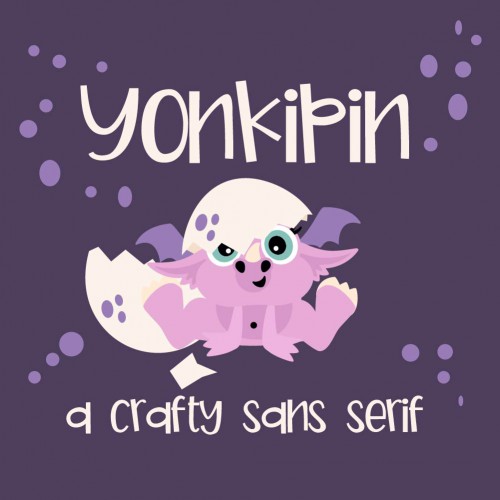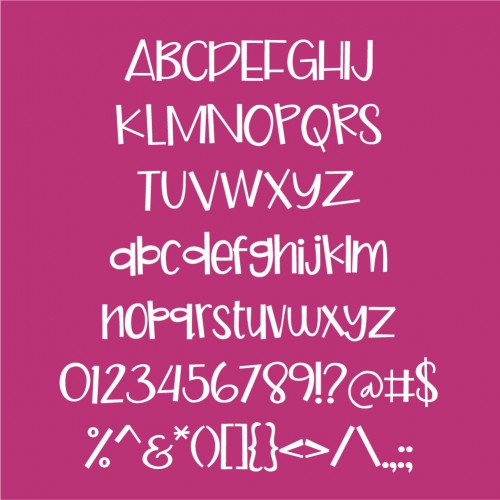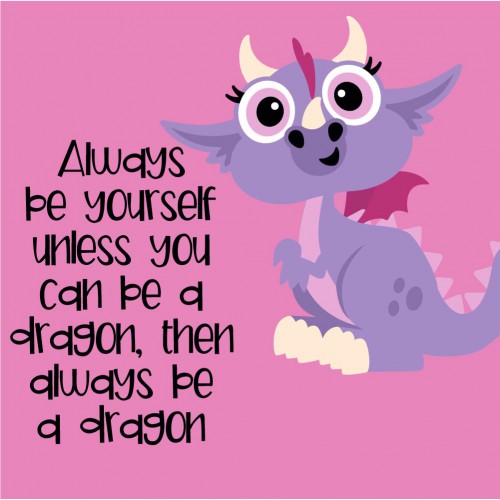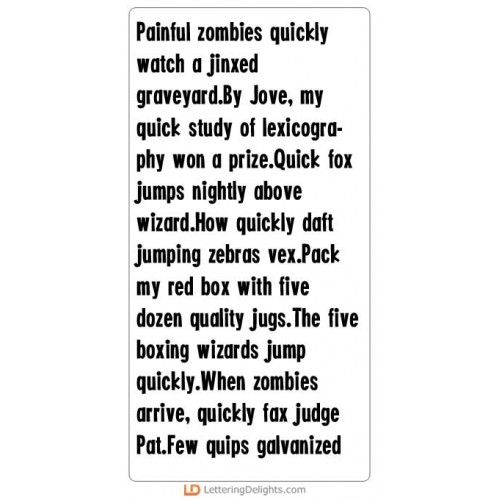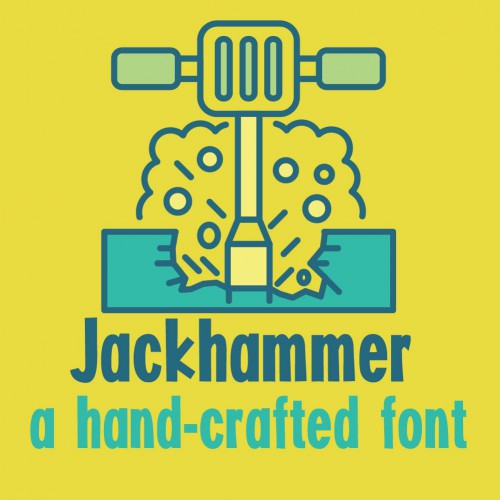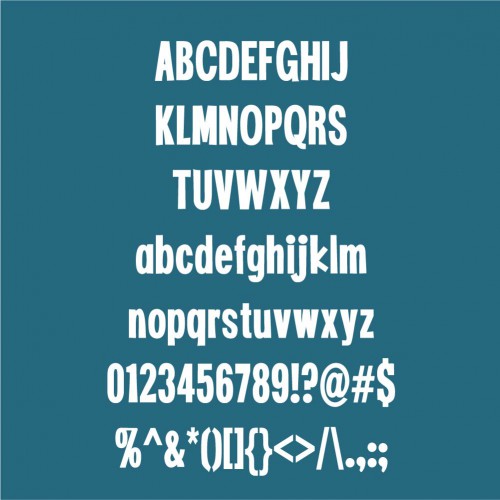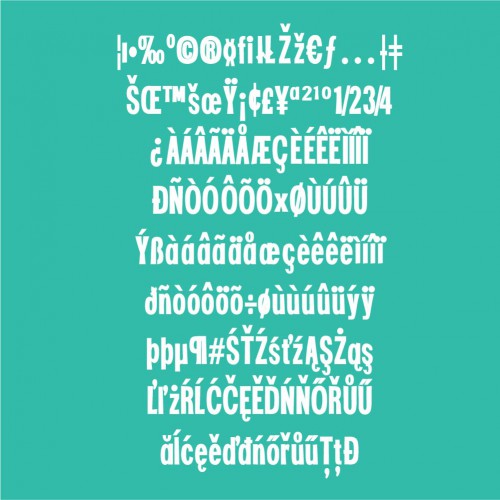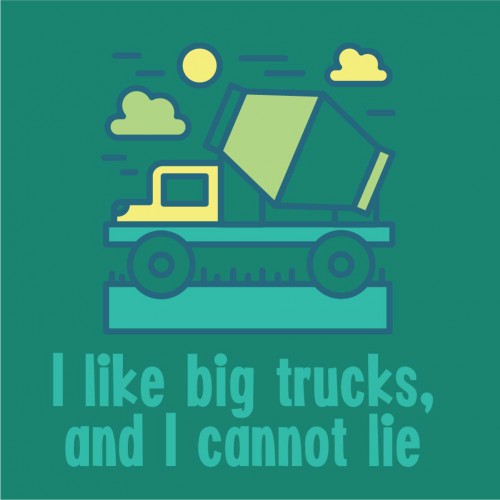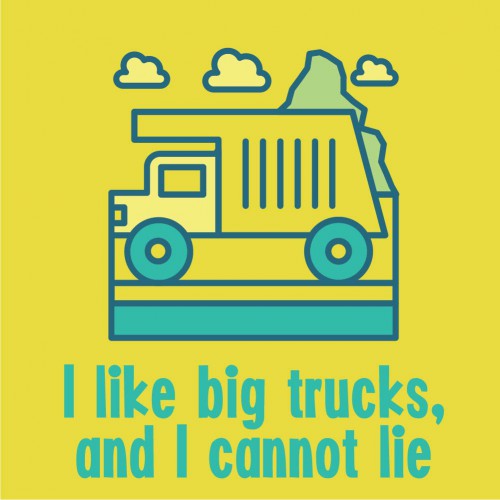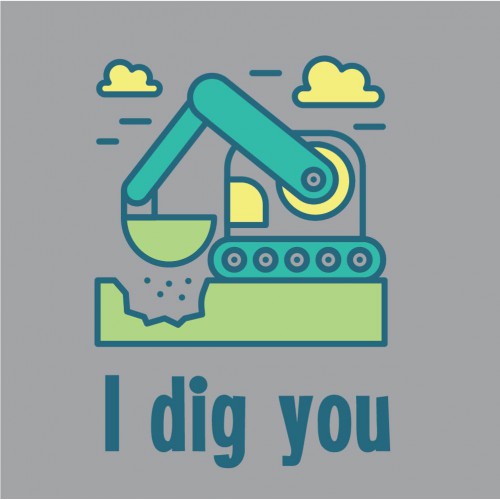
Little Dragons - Big Bundle
This adorable graphic collection features sweet little dragons perfect for cards, crafts, planner stickers, scrap book pages, parties, decor and more!
ZP Yonkipin - FN
This cute and whimsical, sans serif font has a very fun and happy feel to it...
ZP Jackhammer - FN
This fun, sans serif font is simple but it's got a little bit of whimsy...
ZP Jackhammer Lite - FN
This fun, sans serif font is simple but it's got a little bit of whimsy...
ZP Mauvaise Foi - FN
This hand-written font is a quasi-script - part script, part print...
DB Little Dragons - DB
This adorable doodlebat font features 26 sweet little dragons perfect for cards, crafts, planner sti..
DB Little Dragons - Play - DB
This adorable doodlebat font features 26 little dragons read to play. Perfect for cards, crafts, pla..